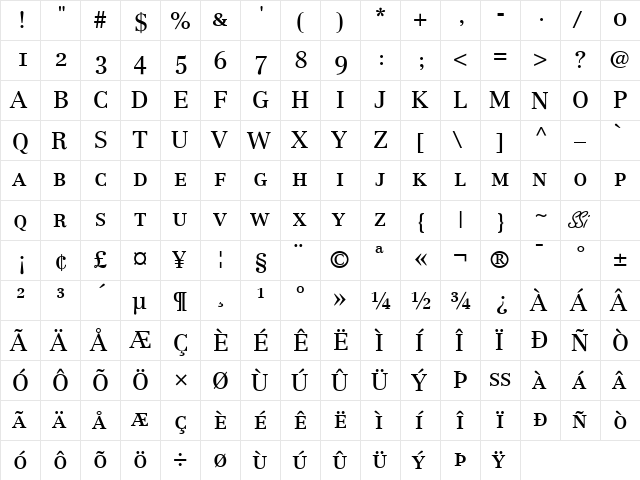
Century Reprise OldStyle SSi Small Caps
Design Context for Century Reprise OldStyle SSi Typeface
Century Reprise OldStyle SSi carries the refined structure of traditional serif typography, with bracketed terminals and considered proportions that communicate credibility and craft.
Pro Tip: Set Century Reprise OldStyle SSi with slightly loose tracking in headlines to let each letterform's detail read clearly at display sizes.